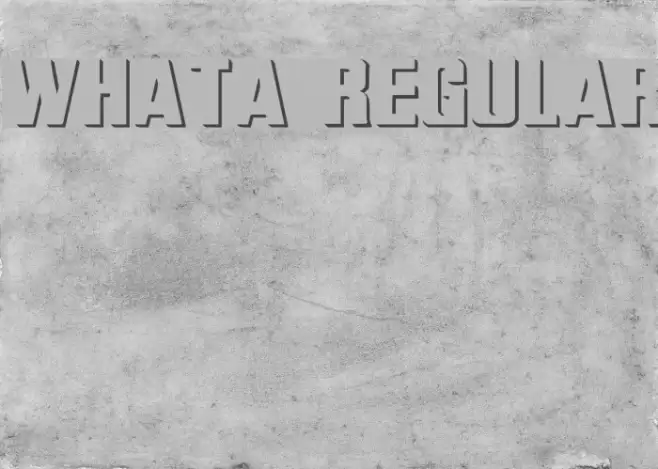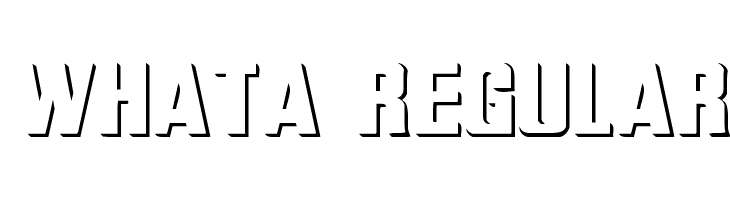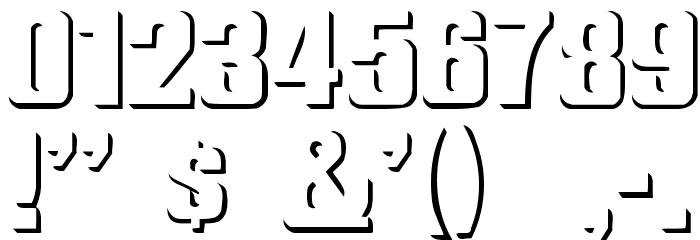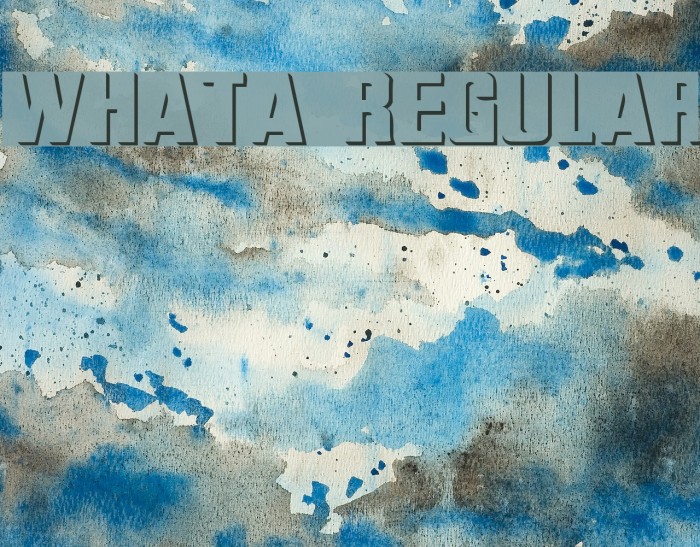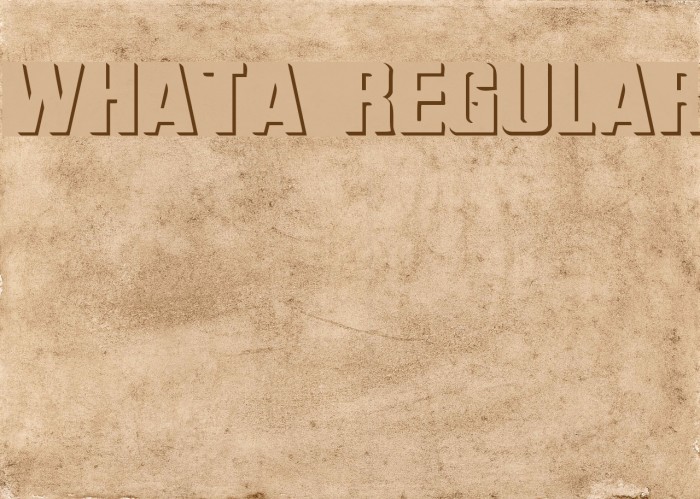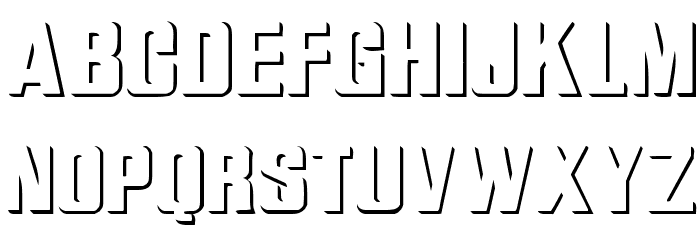
WhatA Regular
This font features a bold, decorative style with a distinct stencil-like appearance. The characters are uppercase and have a strong, industrial feel, characterized by thick lines and sharp angles. The design includes cut-out sections within each letter, giving it a unique, rugged look. The numbers and special characters follow the same bold and structured design, maintaining consistency throughout. This font is ideal for projects that require a strong visual impact, such as posters, signage, or branding materials. Its boldness and unique style make it stand out, ensuring that any text is both eye-catching and memorable.
A bold, decorative stencil-style font with a strong, industrial feel.
- Proposed Projects: Ideal for posters, signage, branding materials, and any project needing a strong visual impact.
- Contrast: High
- Overall Style: Decorative